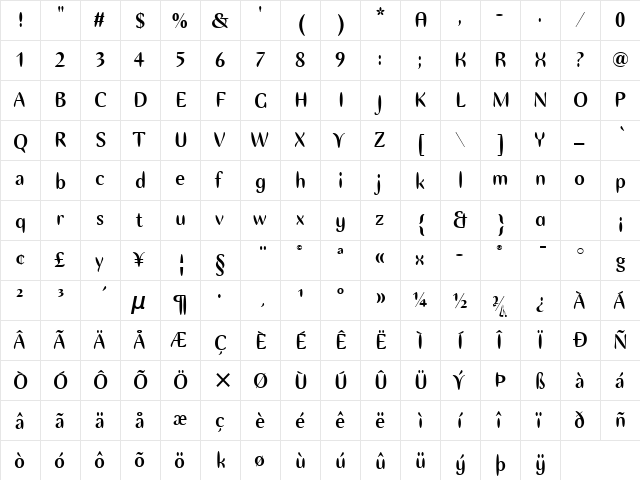
Ellipse ITC TT Bold
Design Context for Ellipse ITC TT Typeface
Ellipse ITC TT takes a measured approach to typography — its balanced proportions and neutral character make it a reliable workhorse for both digital and print work. The heavy weight commands attention and anchors typographic hierarchies.